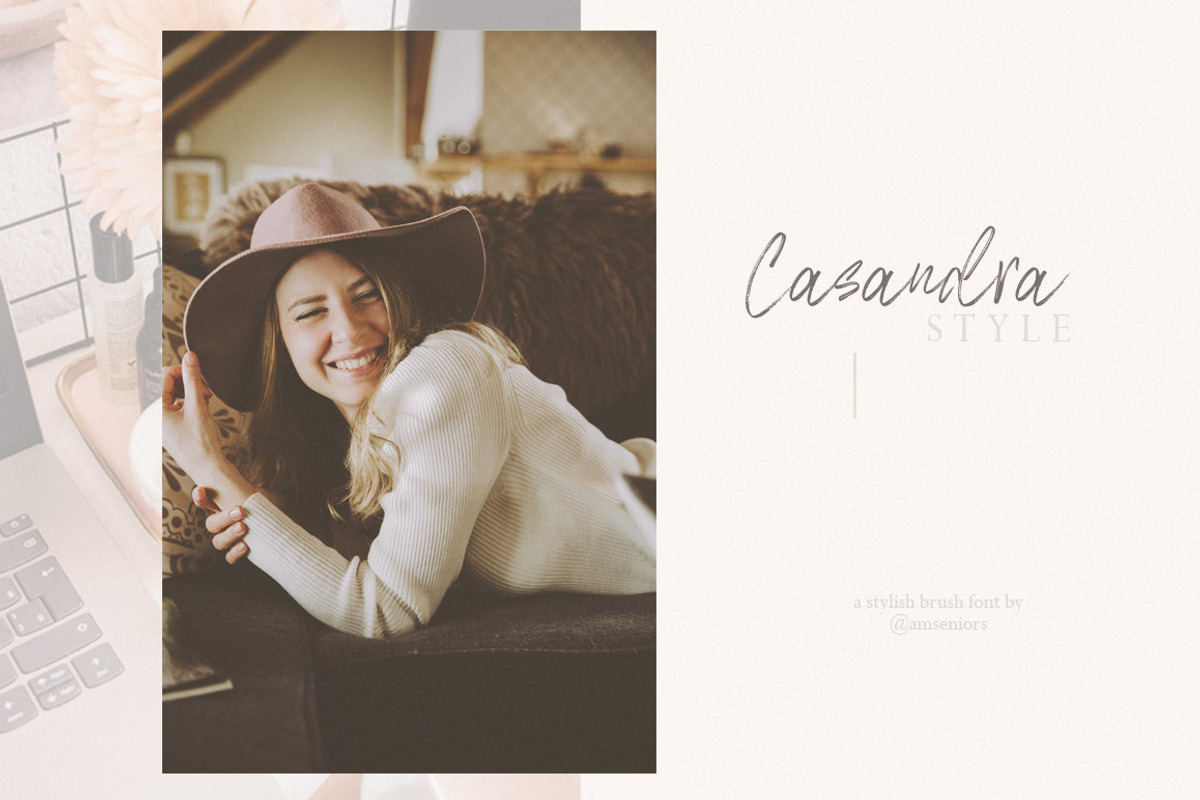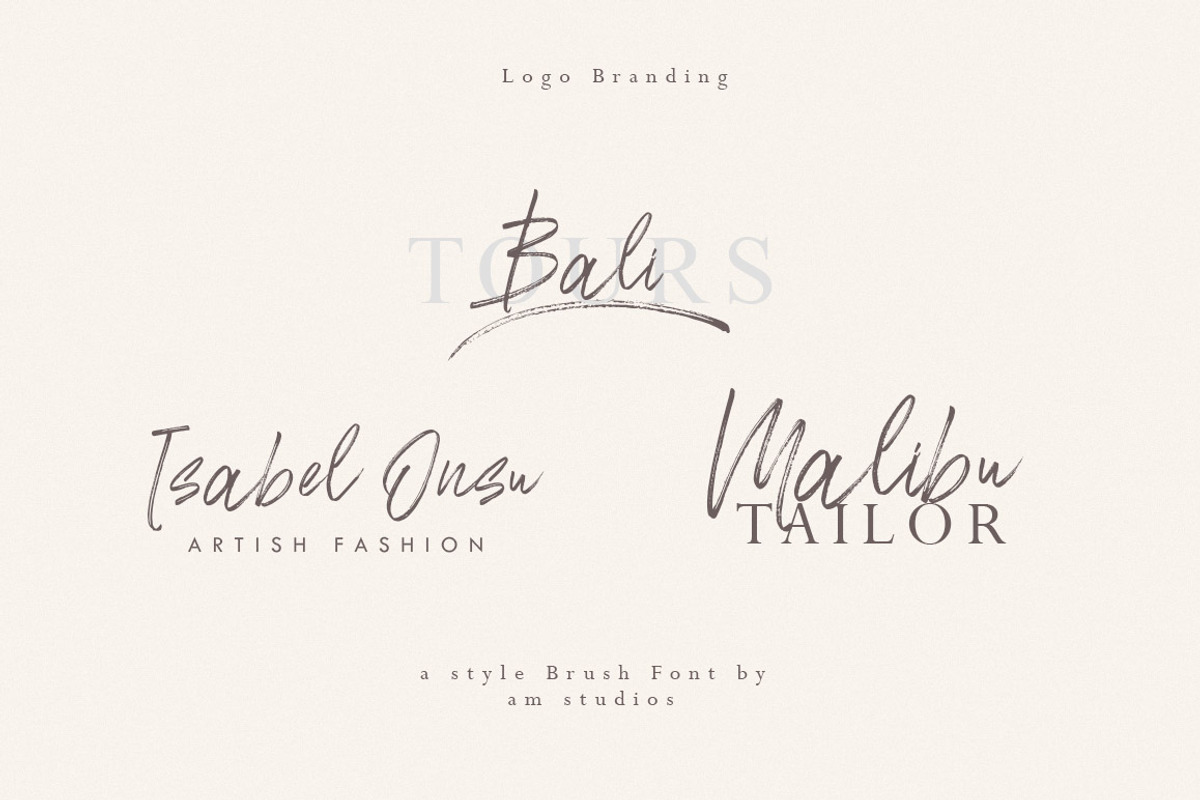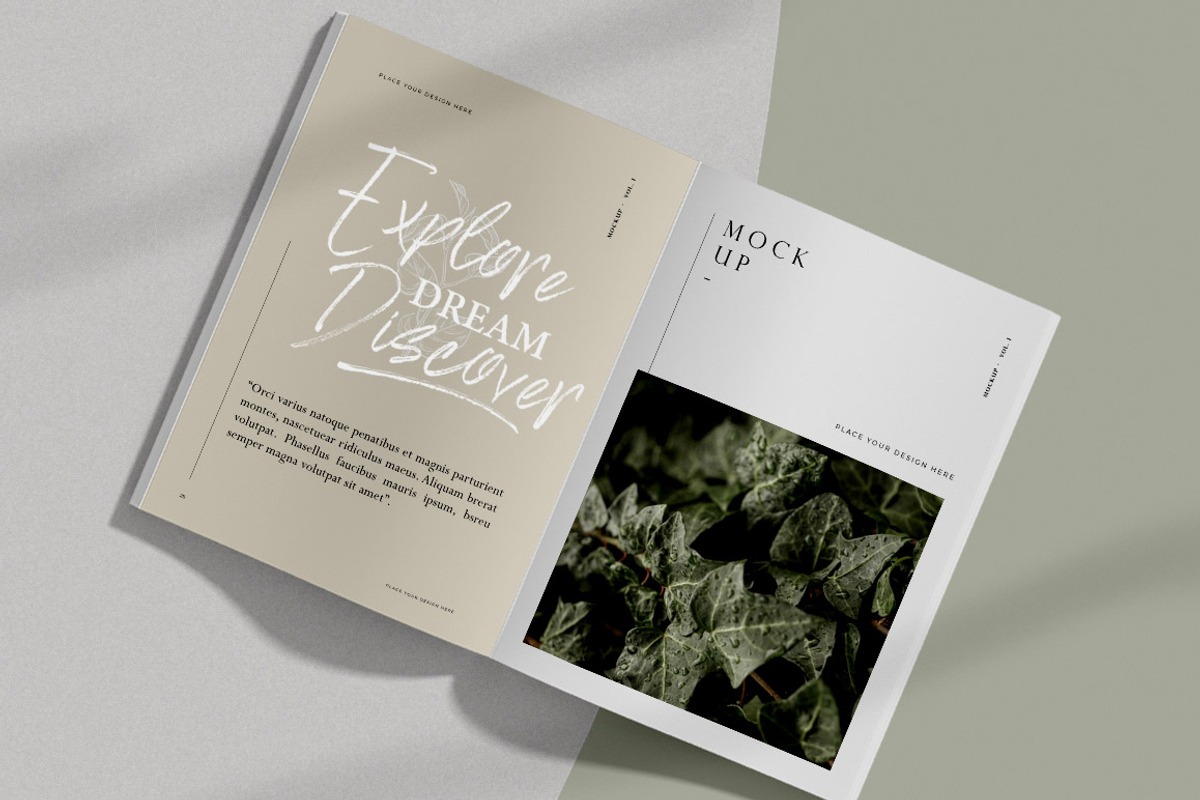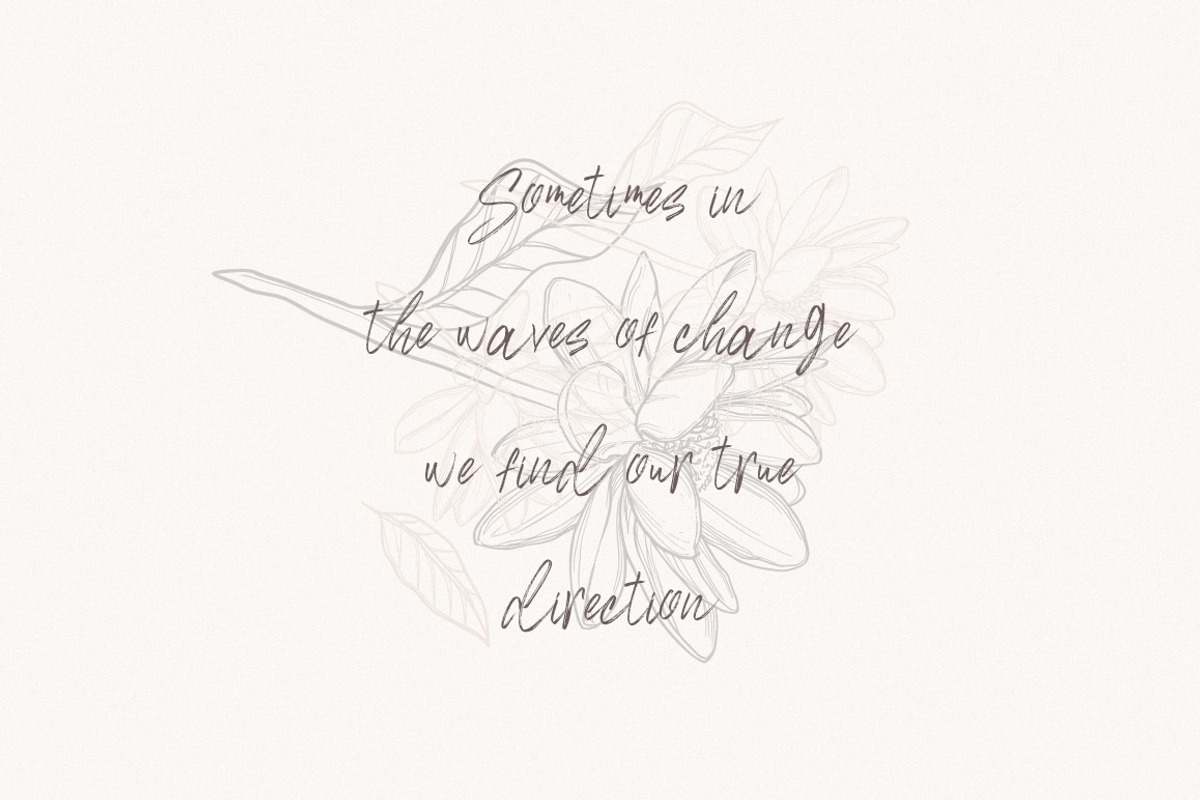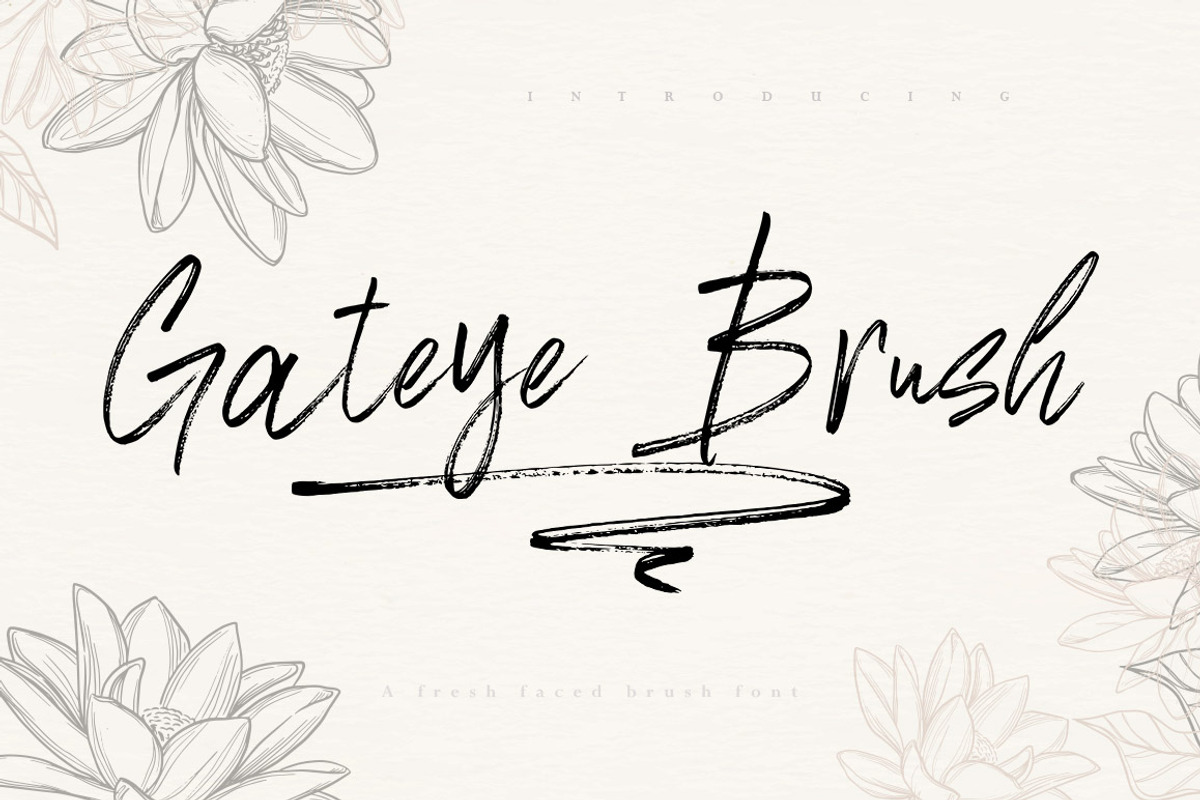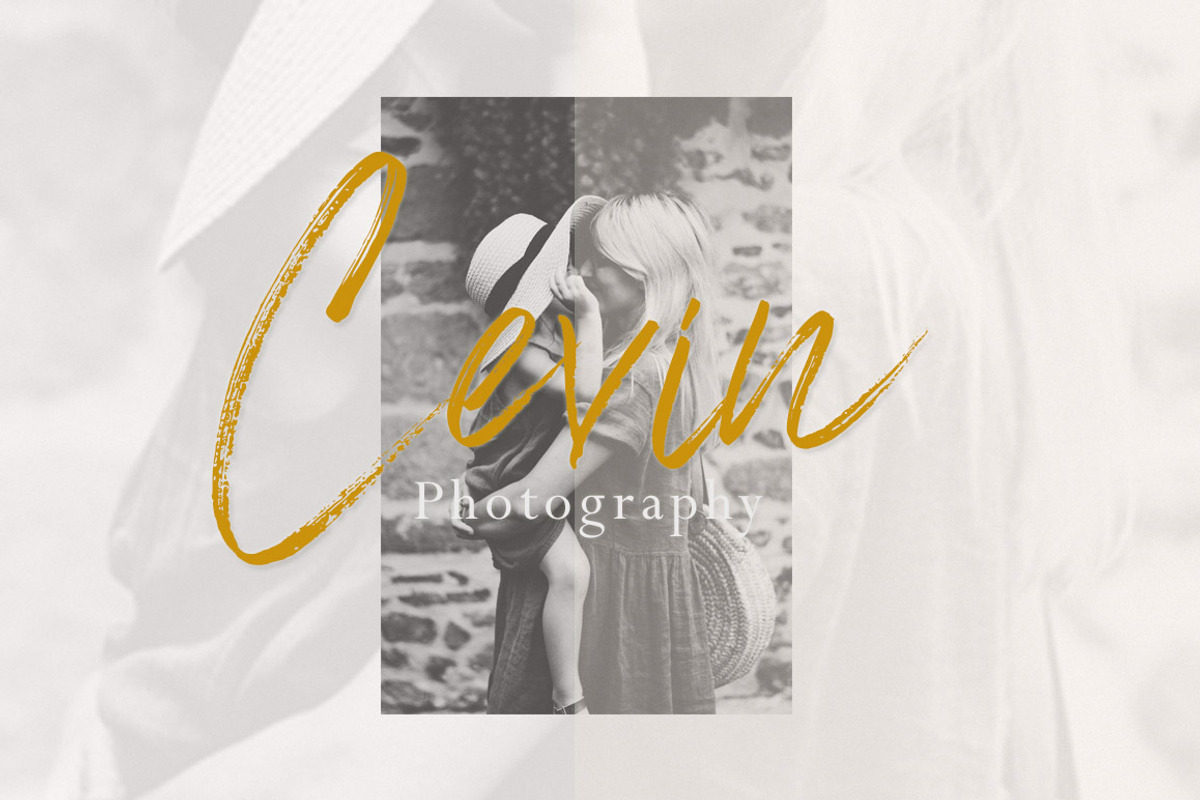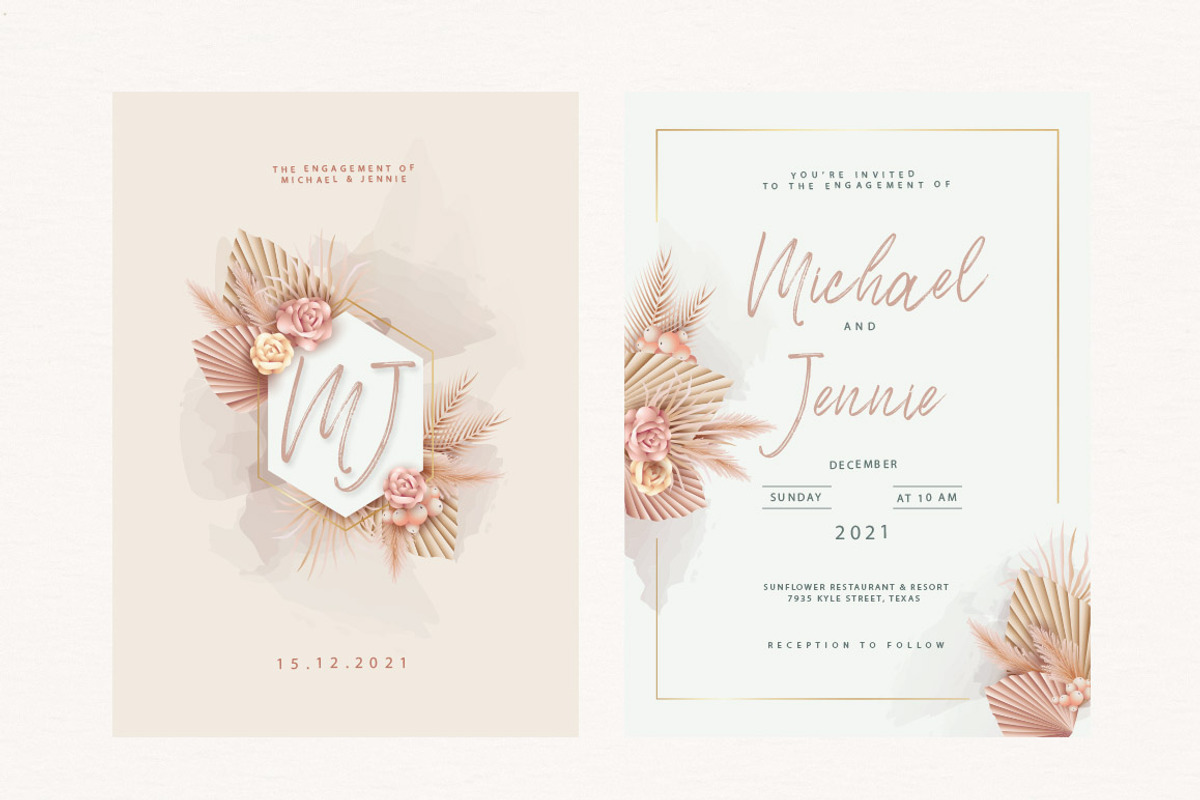
Gateye Brush
*Gateye is a stylish, handwritten script font perfect for creating beautiful logos, signatures, signage, social media, blog posts, styled quotes, packaging, and more! Gateye is stylish, flirty, and fashionable + handcrafted with lots of love for your beautiful projects.
Gateye is not only stunning but so versatile! If you're looking to create stunning logos, gorgeous signatures, and high fashion graphics, look no further. You're going to love having Gateye apart of your font collection.